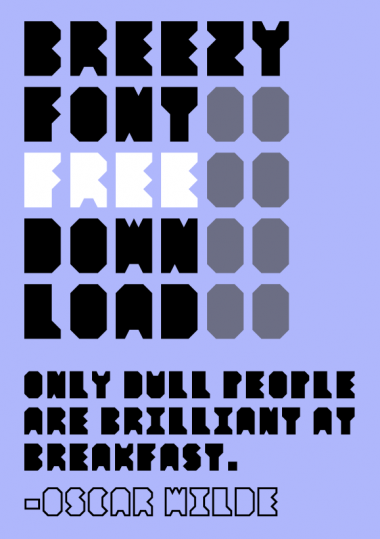
• Well, what can I say? I just tried to create a very simple but modern typeface, suitable for headlines, based on a 4x6 grid raster. Lowercase is monotype. Check out my example! i = alt.I m = alt.M w = alt.W q = alt.Q x = alt.X y = alt.Y % = alt.4
Very nice. I like the symmetry in your cuts. I really like the "Oscar Wilde"...maybe an outlined version?